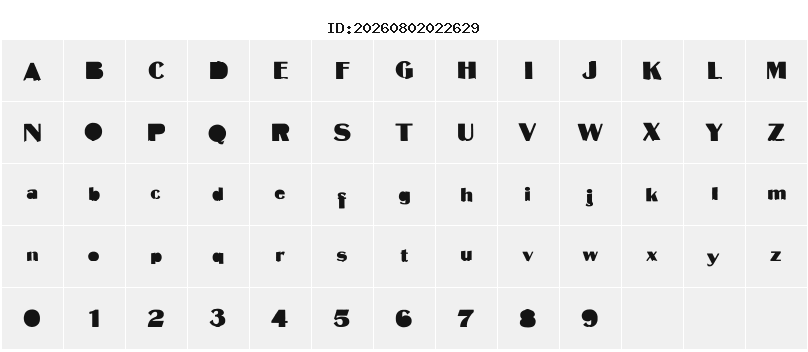
Mattaaus Preview
• Font Name: Mattaaus
• Font ID: PauloW: Mattaaus Regular: 2016
• Full Font Name: Mattaaus Regular
• PostScript Name: Mattaaus-Regular
• Character Count: 76
• Manufacturer: Paulo W
About Mattaaus.ttf
Mattaaus.ttf is a modern, elegant sans-serif font designed for ultimate readability and visual harmony. Perfect for branding, headlines, web design, and print materials.